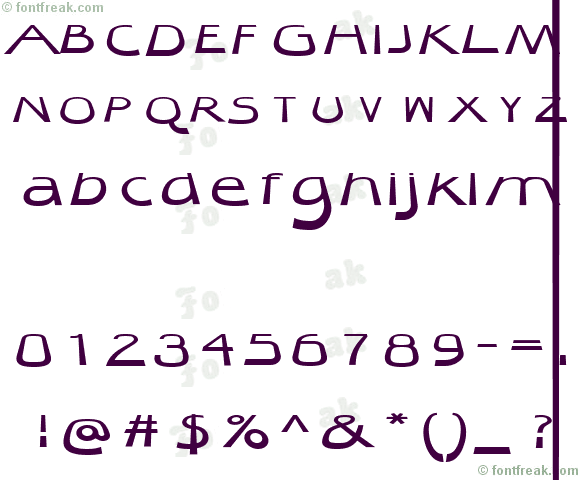
Quibel Bold Italic
Quibel, designed by Rafi, is a striking display font that beautifully blends both bold and italic styles. This font is categorized as a decorative typeface, making it stand out in any design project. Its unique visual characteristics feature a medium stroke weight with a slight contrast, creating a playful yet sophisticated appearance. The gentle curves and fluid forms lend it an elegant touch, while the spacing is thoughtfully balanced, ensuring readability even in larger sizes.
Quibel is particularly well-suited for various contexts. It shines in wedding invitations, where its romantic flair can elevate the overall aesthetic. Additionally, it works wonderfully for movie posters, providing a captivating headline that draws attention. Restaurant menus can benefit from Quibel’s charm, making the dining experience feel more inviting and unique. Content creators will also find this font invaluable for branding and social media graphics, where a distinctive look can help convey a brand's personality.
What sets Quibel apart is its ability to convey a sense of whimsy while maintaining professionalism. Its decorative nature makes it versatile for a range of applications, ensuring that your designs will not only stand out but also leave a lasting impression. For anyone searching for a unique typeface to enhance their creative endeavors, the Quibel font free download is a must-have addition to your font library.